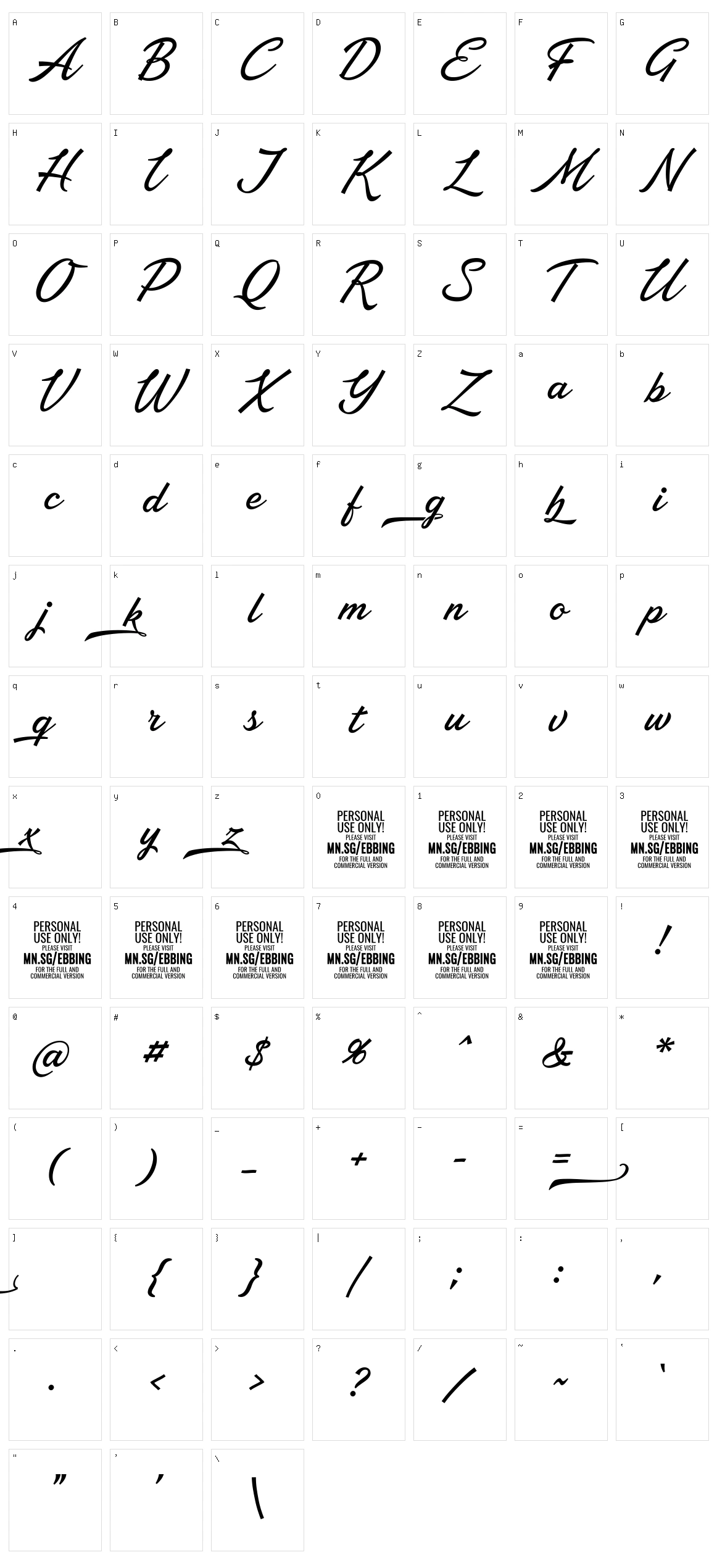
Ebbing is decorative typeface, created by Måns Grebäck in 2018.
Created to fit into vintage logotypes and headlines, this script type
has a hand-crafted look and genuine style.
The font contains contextual and stylistic alternates, ligatures and swashes.
With its hundreds of glyphs it supports a very wide range of languages.
Ebbing comes with three fonts: Ebbing, Ebbing Pro and Ebbing Swash.
Ebbing Pro is a clean, natural font with great OpenType-support, while Ebbing Swash
is its decorated counterpart that can be used to give the a logo specific attributes.